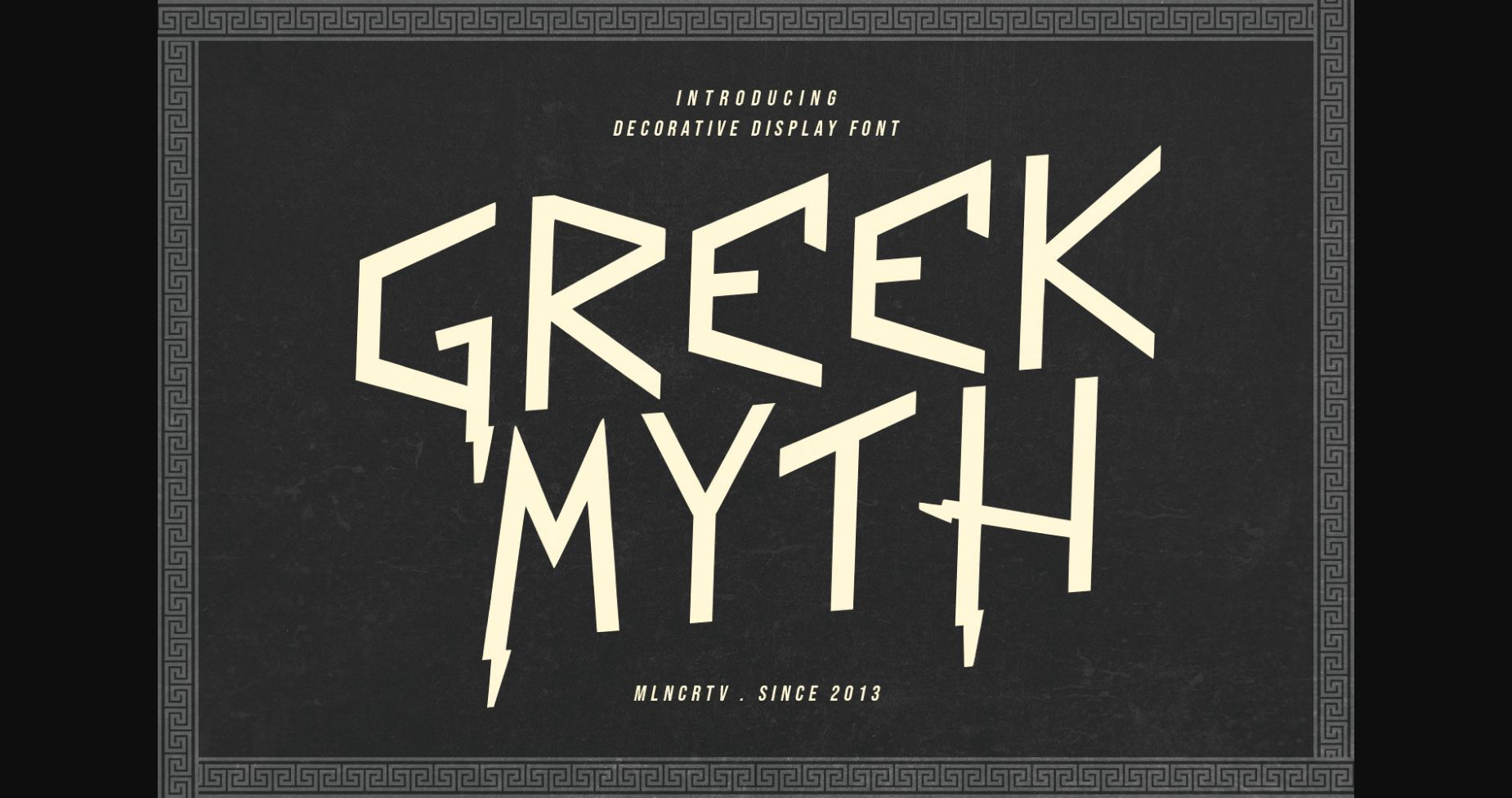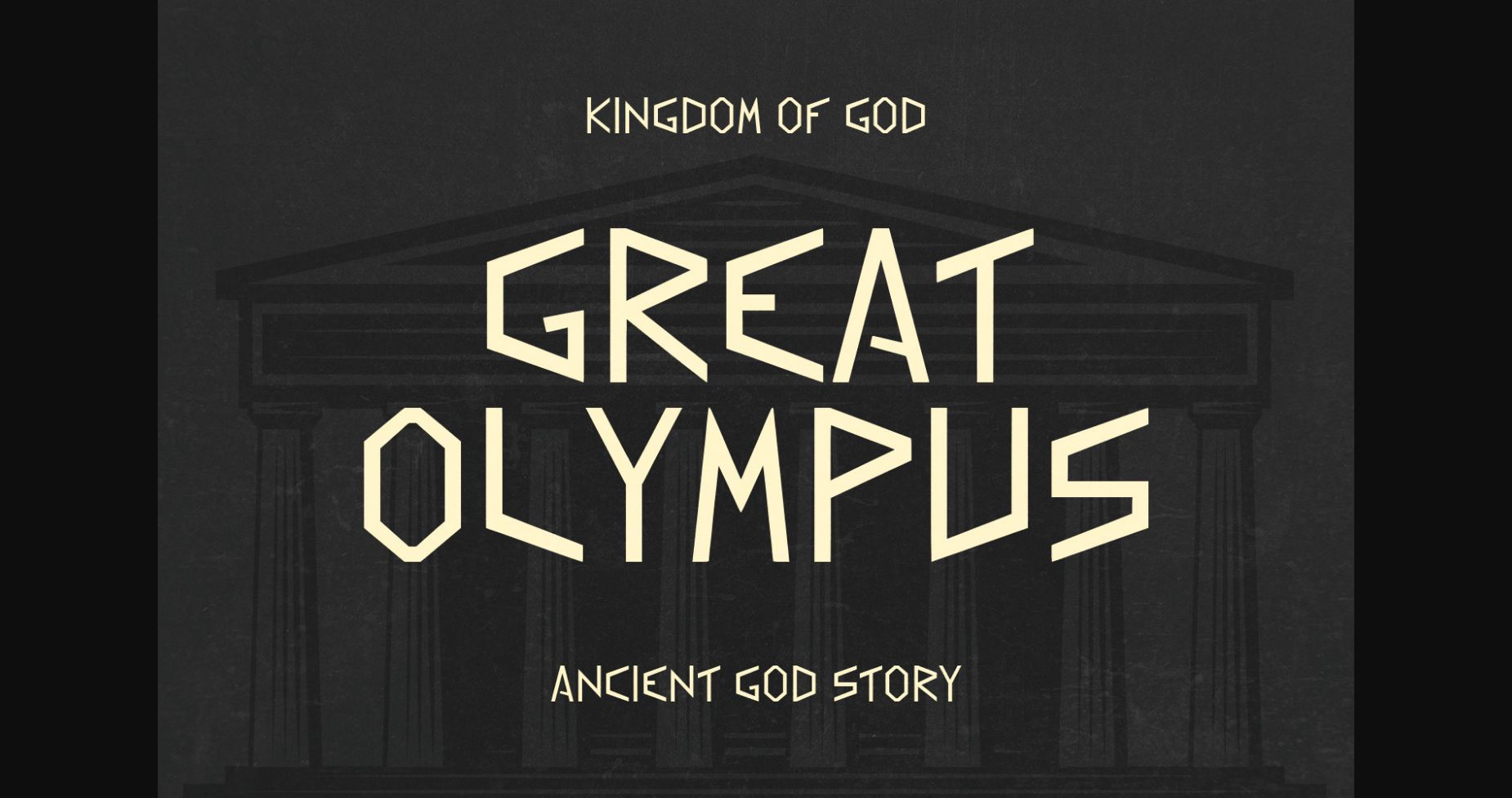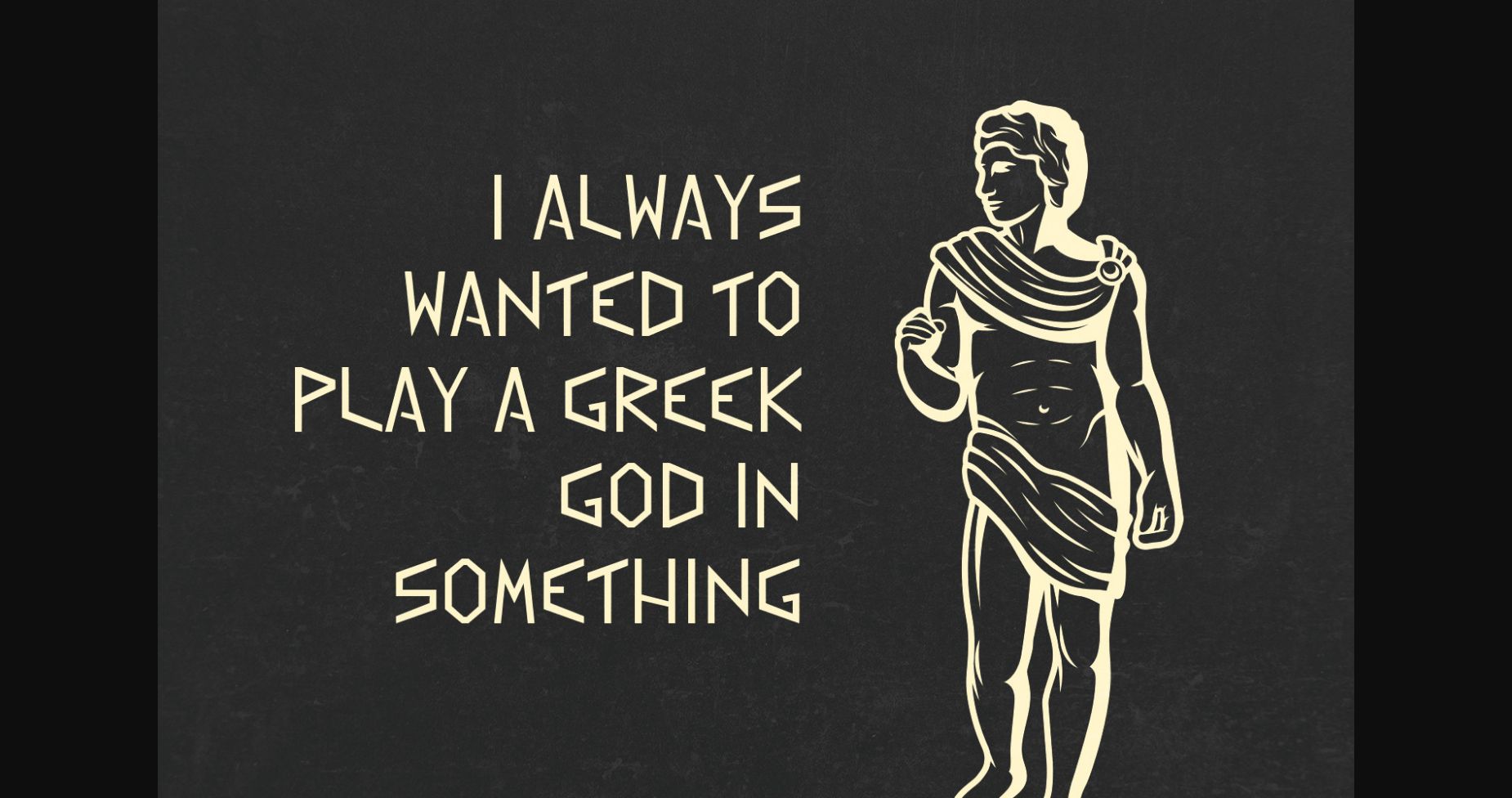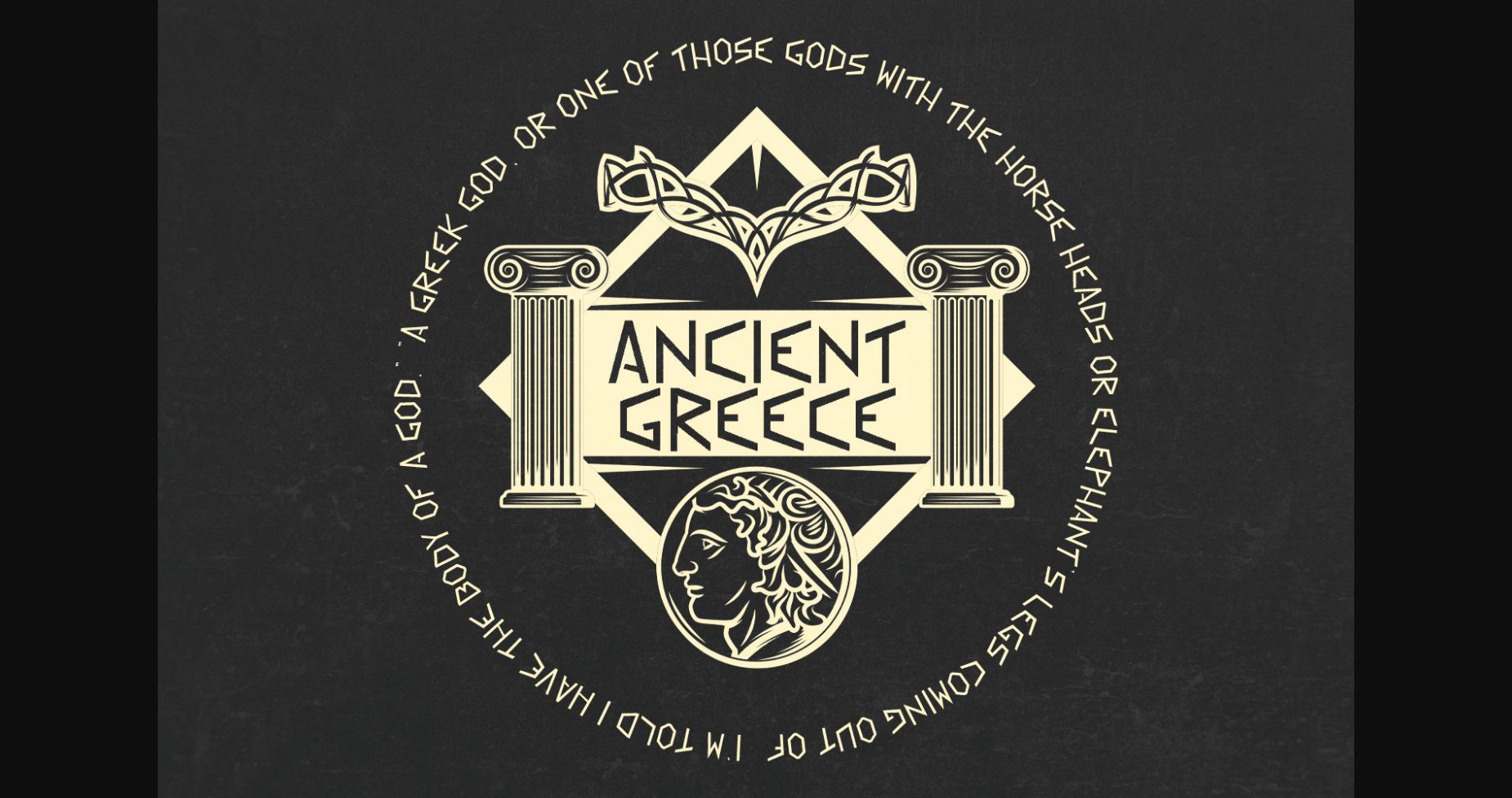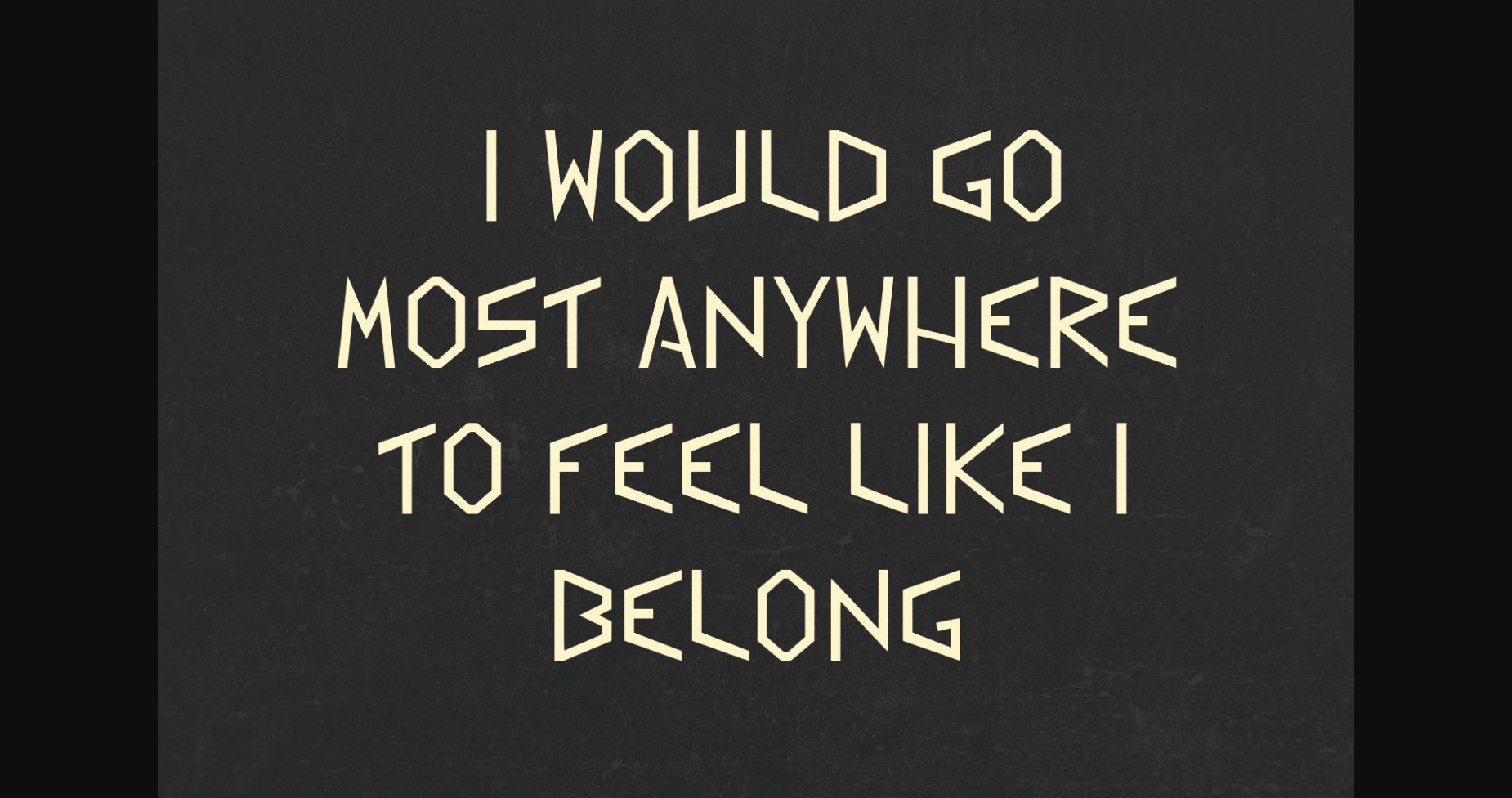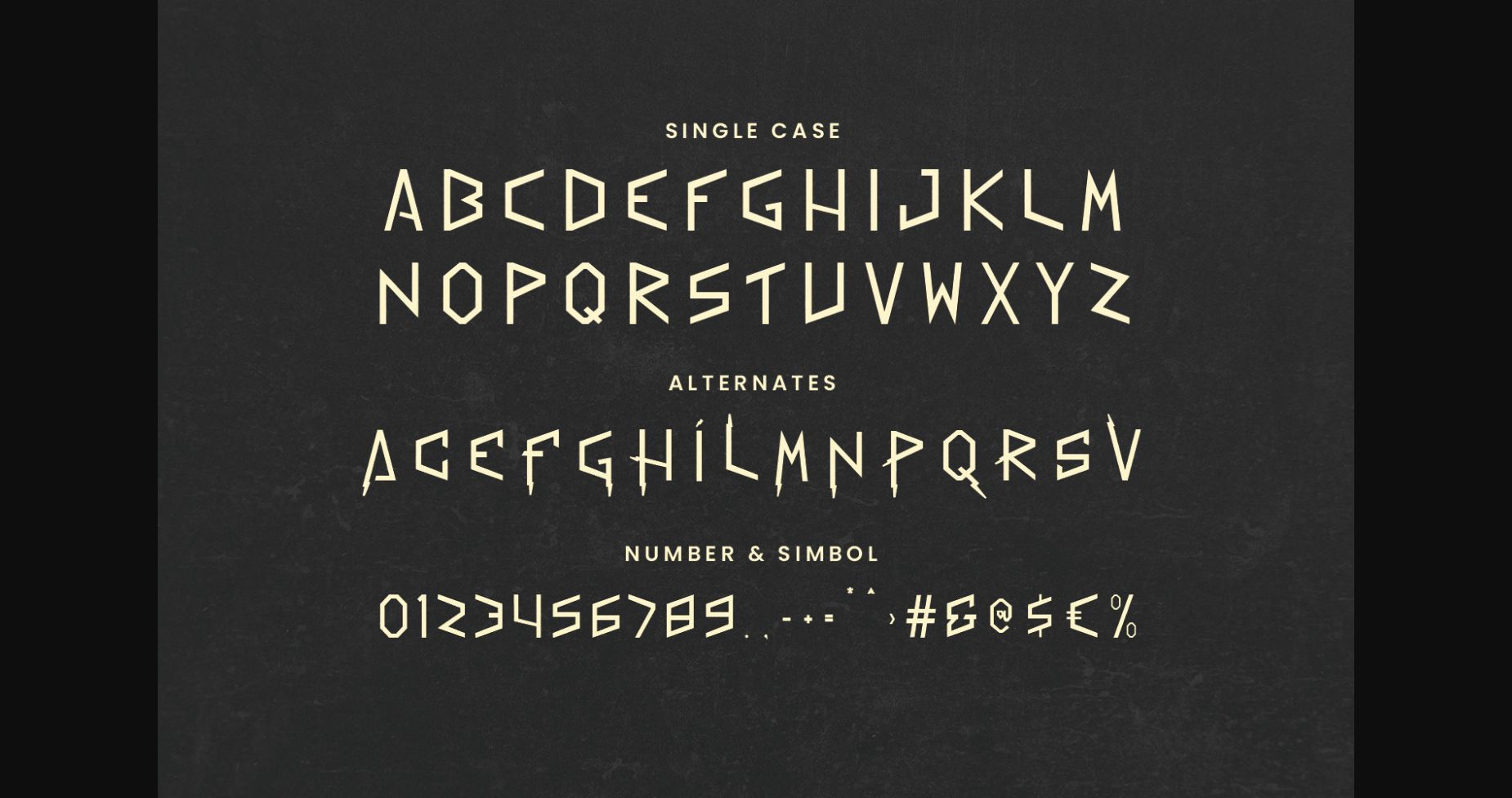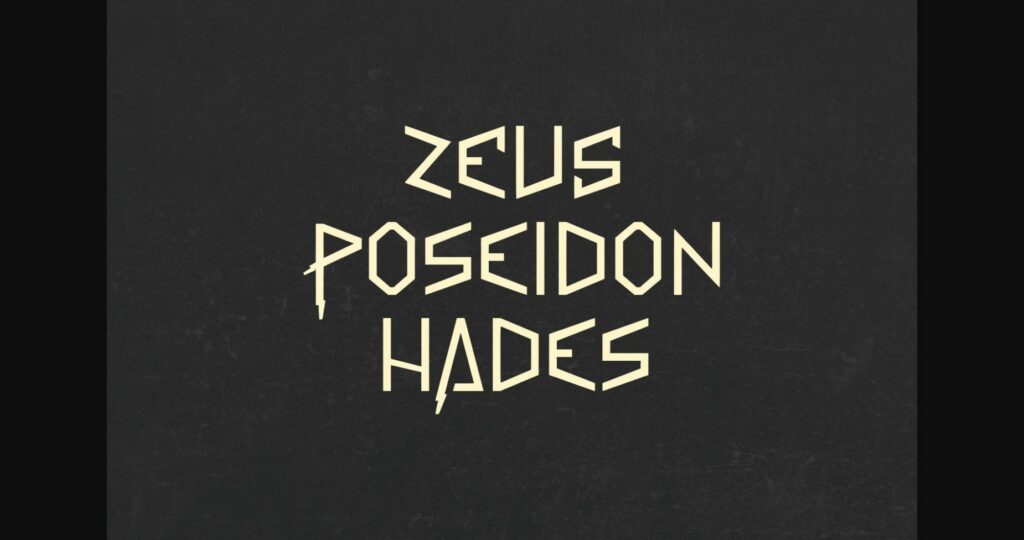
HomeSans Serif FontsGreek Myth Font Sans Serif Fonts Greek Myth Font FacebookXPinterestWhatsApp 1 of 9 ... Greek Myth Font Poster 2... Greek Myth Font Poster 3... Greek Myth Font Poster 4... Greek Myth Font Poster 5... Greek Myth Font Poster 6... Greek Myth Font Poster 7... Greek Myth Font Poster 8... Greek Myth Font Poster 9... About Greek Myth Font Greek Myth is a bold and assertive serif font. No matter the topic, this font will be an incredible asset to your fonts’ library, as it has the potential to elevate any creation. DOWNLOAD NOW People also explored Vronterm Font Empire Font Santa is Coming Font Super Stacked Font Jenkins Runova Font Good Luck! Font Alisse Font Cherry Complete 403 0 TagsGreek Myth Font Previous articleMontero FontNext articleLoominaire Font LEAVE A REPLY Cancel reply Comment: Please enter your comment! Name:* Please enter your name here Email:* You have entered an incorrect email address! Please enter your email address here Website: Save my name, email, and website in this browser for the next time I comment. Personal Use Free Midnight Show Personal Use Free Read more about this font Underwood Champion Personal Use Free Read more about this font Masker Area Personal Use Free Read more about this font Rionaldo Angelo Personal Use Free Read more about this font BLOG Fonts That Capture the Spirit of New York City New York City is more than just a place—it’s an experience, a rhythm, a visual language... Free vs Paid Fonts: Why Investing in Premium Fonts Is Worth It 5 Fonts That Will Dominate Design Trends in 2026 Transform Your Website: Elevate Your Typography with 7 Best Web Font Generators